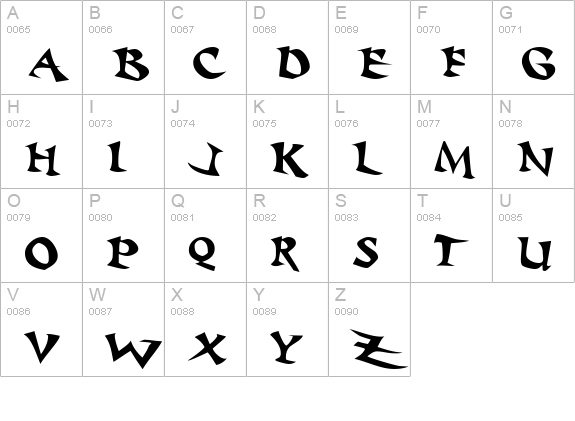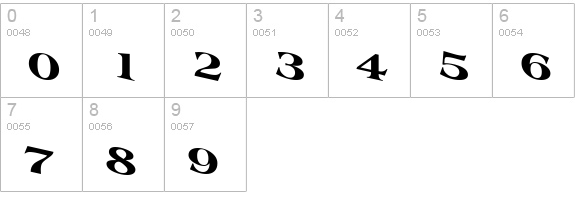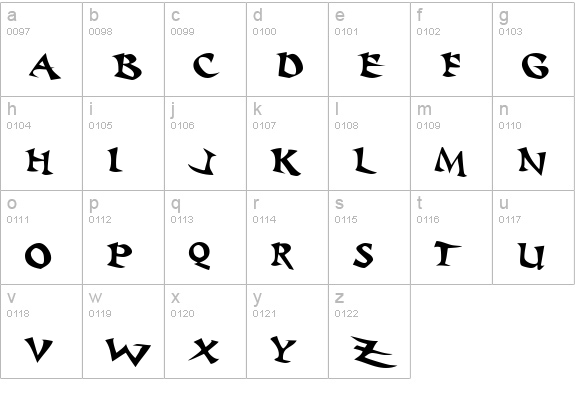
Baratz Font Details
Baratz font is a modern and elegant typeface that combines sophistication with a touch of creativity. Its clean lines and subtle curves make it perfect for a wide range of design projects, from branding to editorial layouts. The versatility of Baratz font allows it to be used in various contexts, adding a sense of style and professionalism to any piece of work. What makes Baratz font even more appealing is that it is available for free download at FontsMarket.com. This means that you can easily access this high-quality font without any cost, making it a valuable addition to your font collection. Whether you are a designer, writer, or student, Baratz font is a must-have resource that will elevate your projects to the next level. Download Baratz font today and experience the beauty and versatility of this stunning typeface.